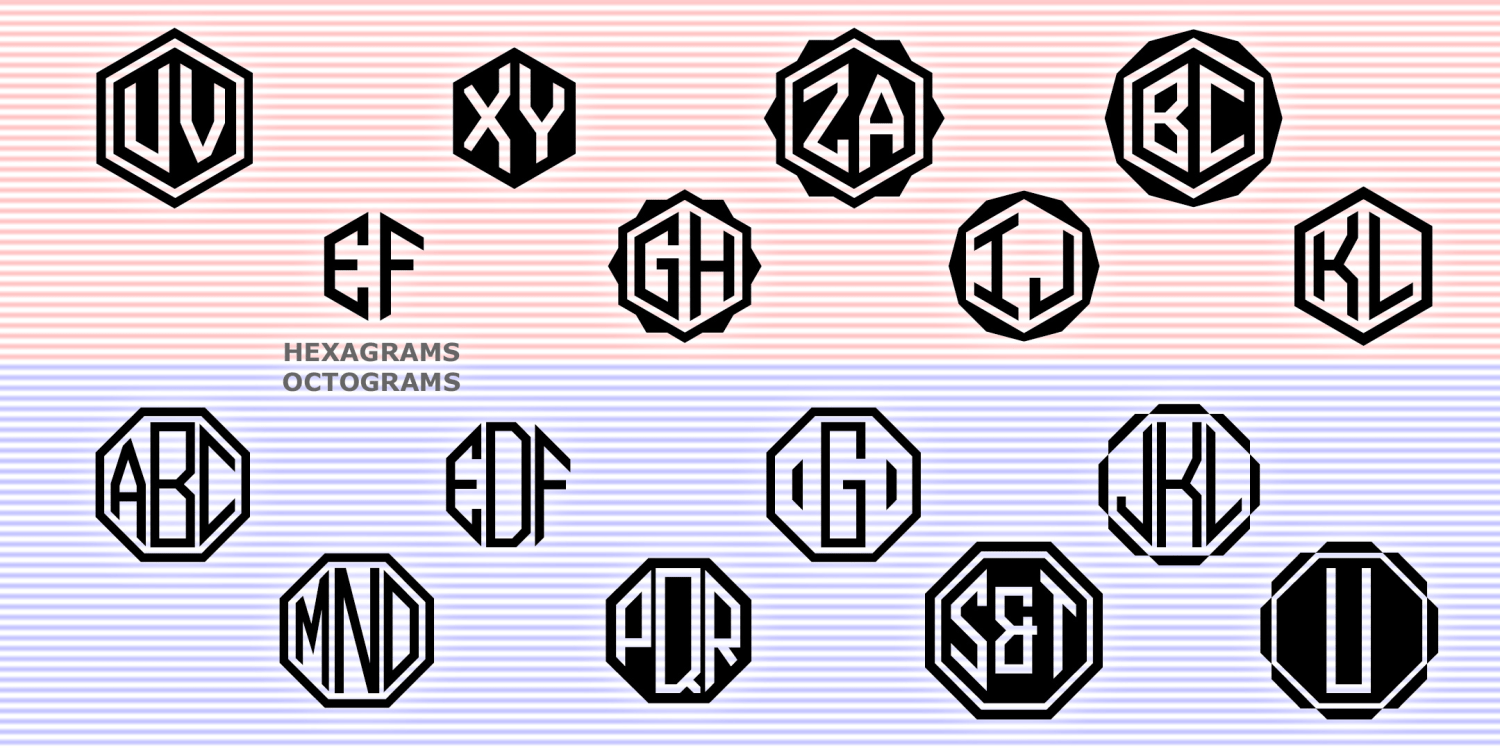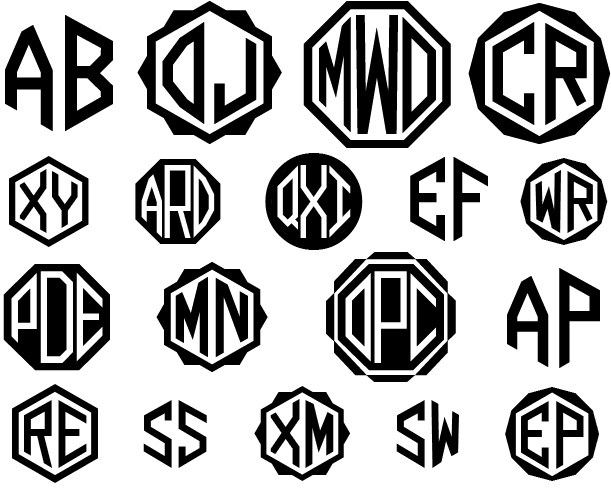
Hexagrams & Octograms
Hexagrams & Octograms includes 4 fonts to produce 2-letter hexagonal or 3-letter octagonal monograms. Separate fonts in each shape let you create monograms with either a white or black background. You can choose to use the frame or not with any monogram. Both shapes include 2 other frame shapes; the octagonal monograms offer the added possibility of 1-letter and "A&B" style monograms.